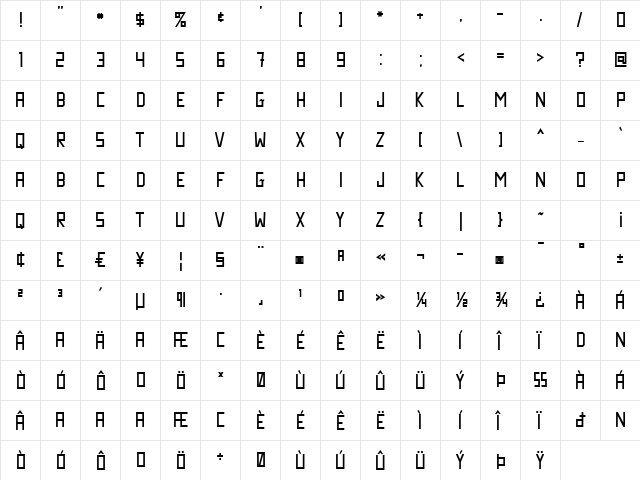
Pastelaria Regular
Design Context for Pastelaria Typeface
Pastelaria offers clean, dependable letterforms without strong stylistic allegiance, making it a practical choice for designers who need flexibility.